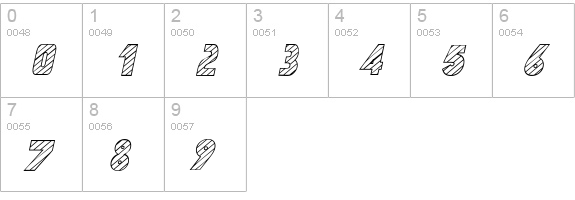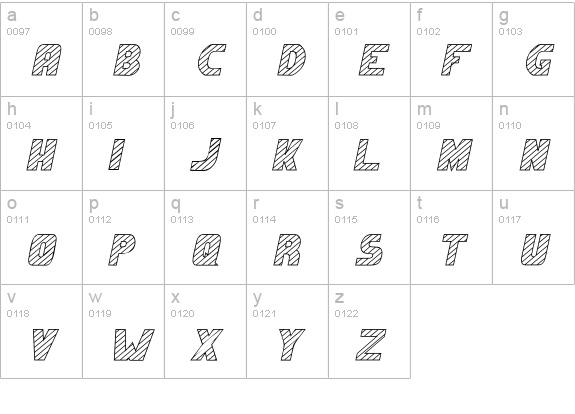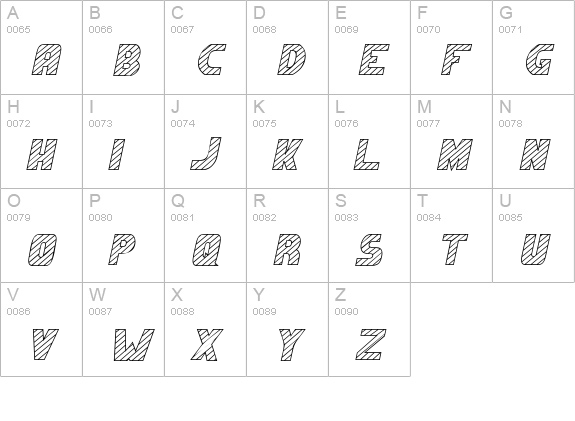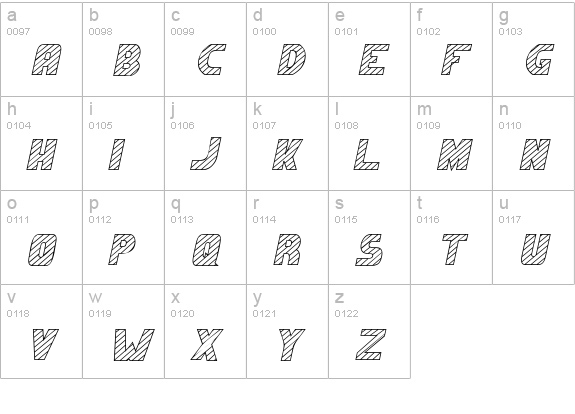
Candystriper Italic is a distinctive, italic variant in the Candystriper typeface family \xE2\x80\x94 well suited to design and typography projects.
Candystriper Italic font is a delightful and whimsical typeface that exudes a playful charm perfect for adding a touch of fun to your design projects. With its slanted, italicized style and unique candy cane-like stripes, this font is sure to catch the eye and add a cheerful vibe to any text. Whether you're creating party invitations, greeting cards, or branding materials, Candystriper Italic will bring a sense of joy and lightheartedness to your work. Best of all, Candystriper Italic font is completely free to download at FontsMarket.com. So go ahead and give your designs a sweet and playful twist with this charming typeface today!